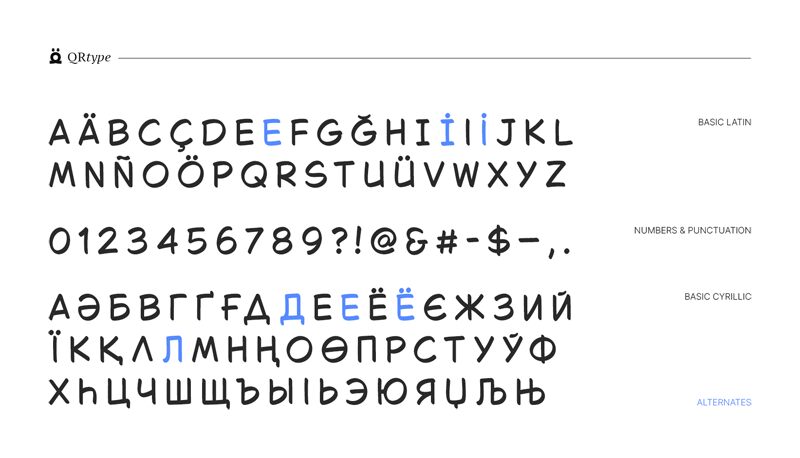
Bubble Sans font by Abay Emes is a free comic display font that features rounded, modern letters with an approachable appearance. The characters resemble the style of speech bubble fonts in classic comics, giving it a fluid look. Its laid-back flowing design allows it to complement many themes and graphic elements in designs allowing for a high level of flexibility.
Includes over 700 glyphs and more than 5,000 kerning pairs, supporting over 300 languages.